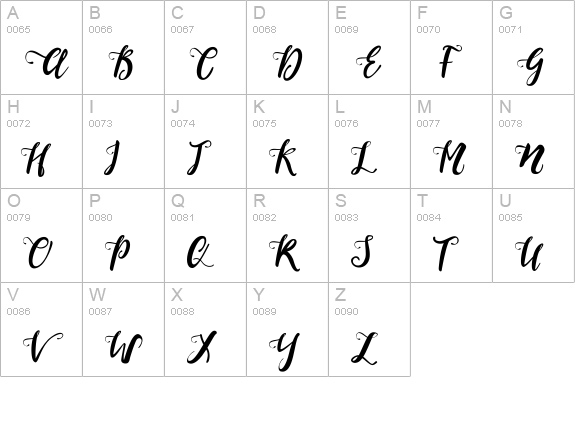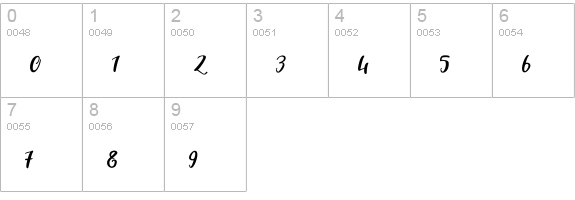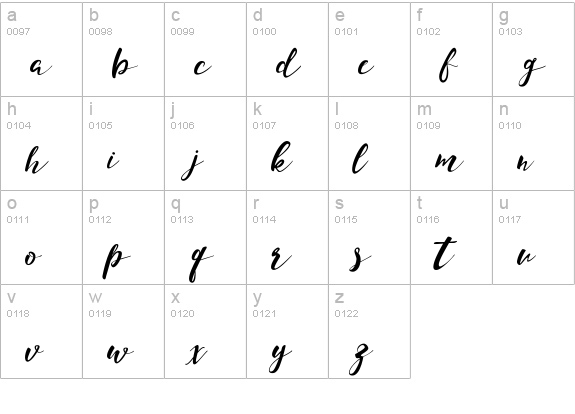
Monica Script Font Details
Monica Script font is a charming and elegant typeface that exudes sophistication and style. With its graceful curves and delicate lines, this script font is perfect for adding a touch of luxury to your designs. Whether you're creating wedding invitations, branding materials, or social media graphics, Monica Script will elevate your projects with its timeless appeal. What's even better is that Monica Script font is completely free to download at FontsMarket.com. You can easily access this beautiful font to enhance your designs without any cost. Don't miss out on the opportunity to elevate your typography game with Monica Script font today!